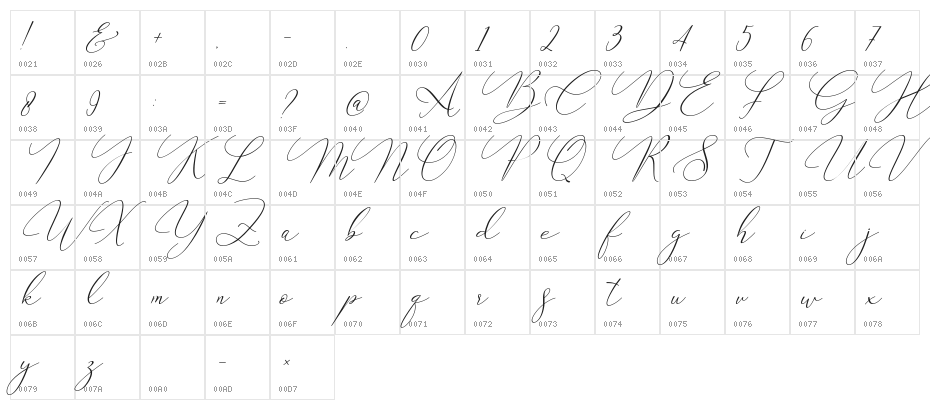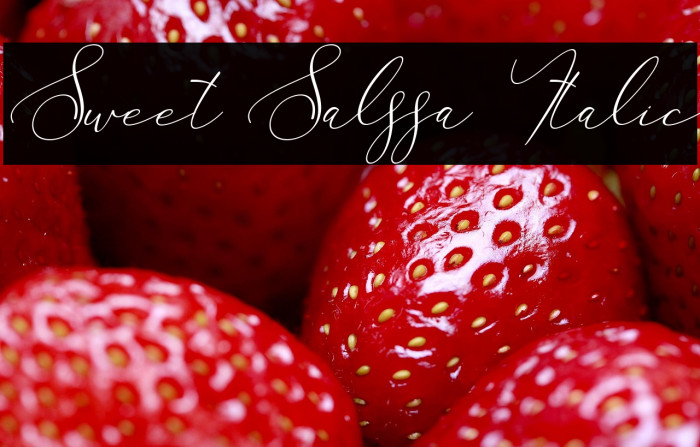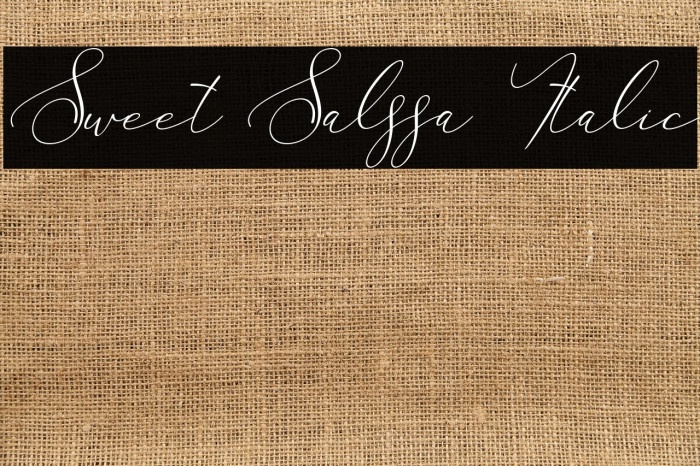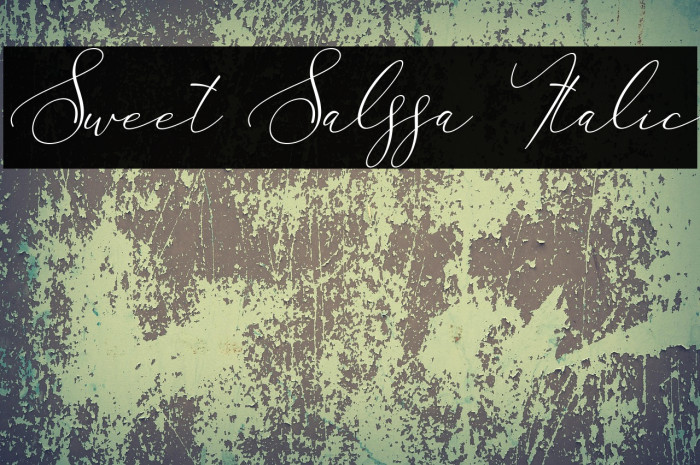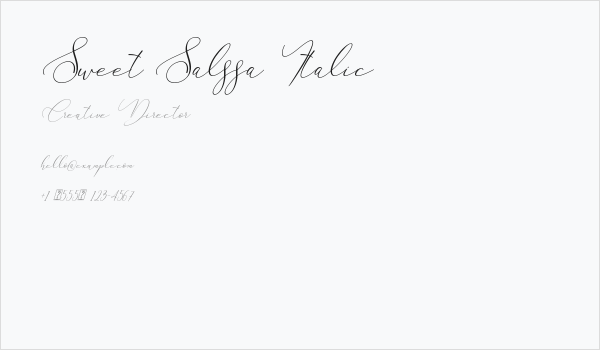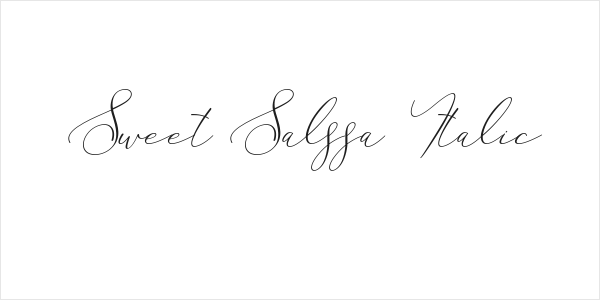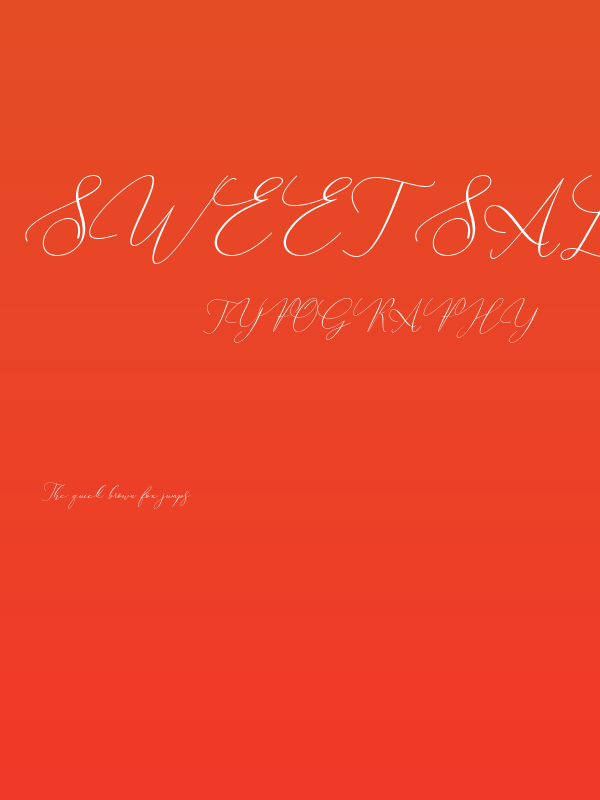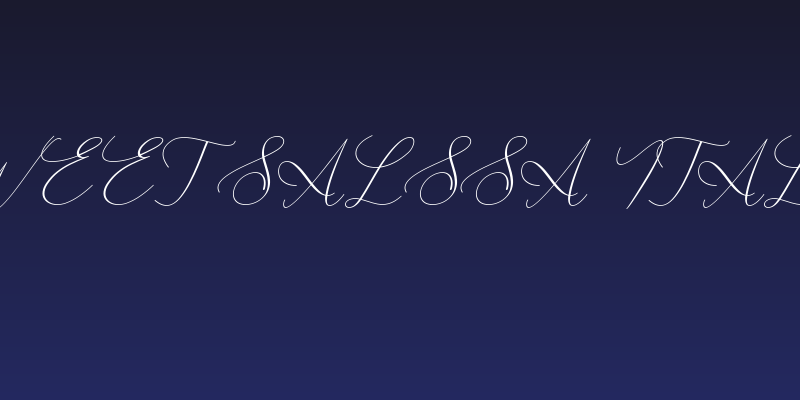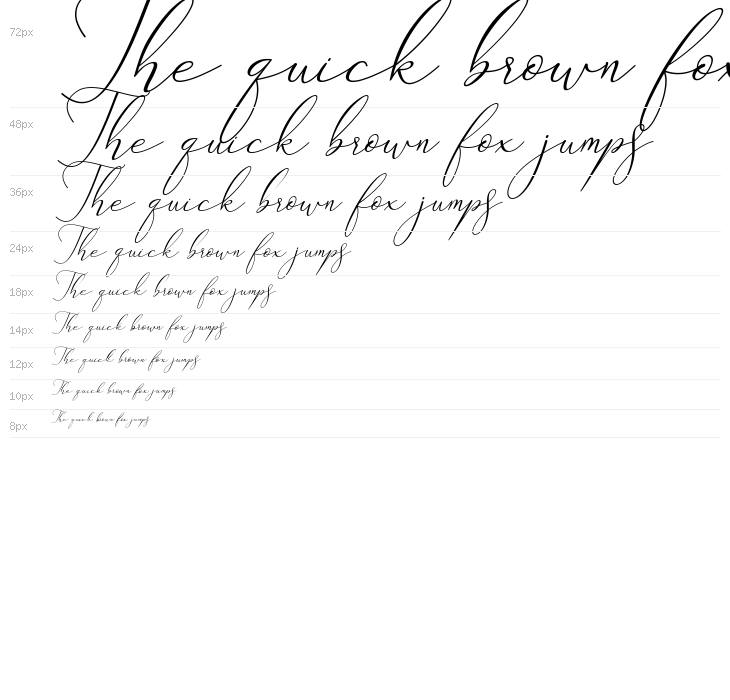
Sweet Salssa Italic Font
Sweet Salssa Italic Description
This font features an elegant, flowing script style that exudes sophistication and grace. The characters are connected in a fluid manner, reminiscent of traditional calligraphy, with a modern twist. The uppercase letters are slightly more ornate, while the lowercase letters maintain a consistent, smooth flow. The numerals are designed to match the script's elegance, ensuring a cohesive look across all characters. The special characters are thoughtfully integrated, maintaining the font's overall aesthetic. This font is perfect for projects that require a touch of elegance and personal flair.
| Proposed Projects | Ideal for wedding invitations, elegant branding, personal stationery, and decorative quotes. |